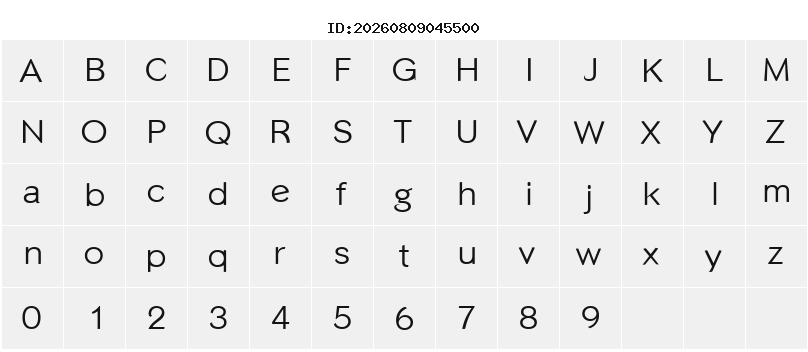
Phinster Preview
About Phinster.ttf
Phinster.ttf is a modern, elegant sans-serif font designed for ultimate readability and visual harmony. Perfect for branding, headlines, web design, and print materials.